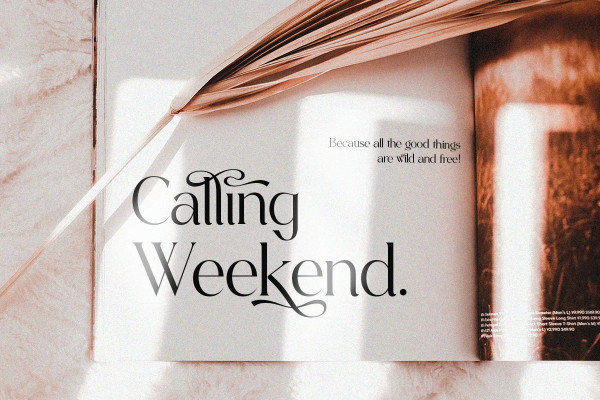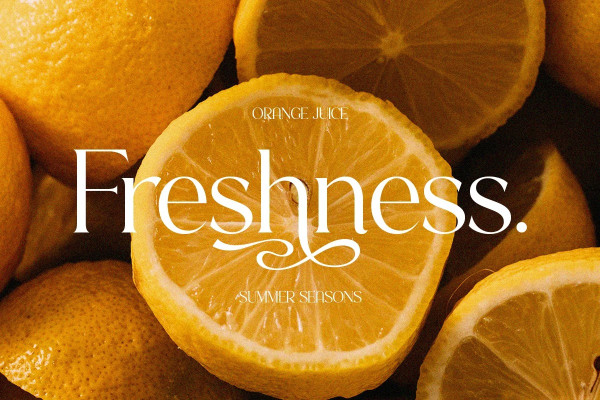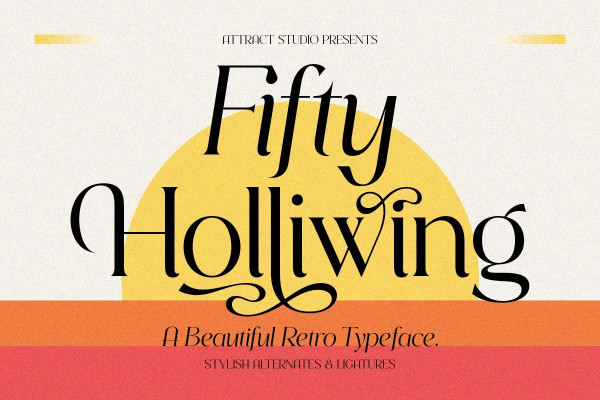
Fifty Holliwing Font
Fifty Holliwing Font is a modern classic serif font inspired by a classy eighties magazine with soft curves and a sharp eye for detail that makes it a must for any project that requires high-end. Fifty Holliwing also comes with an italic version that really helps with your designs as well as lots of unique alternatives and ligatures that are really versatile.